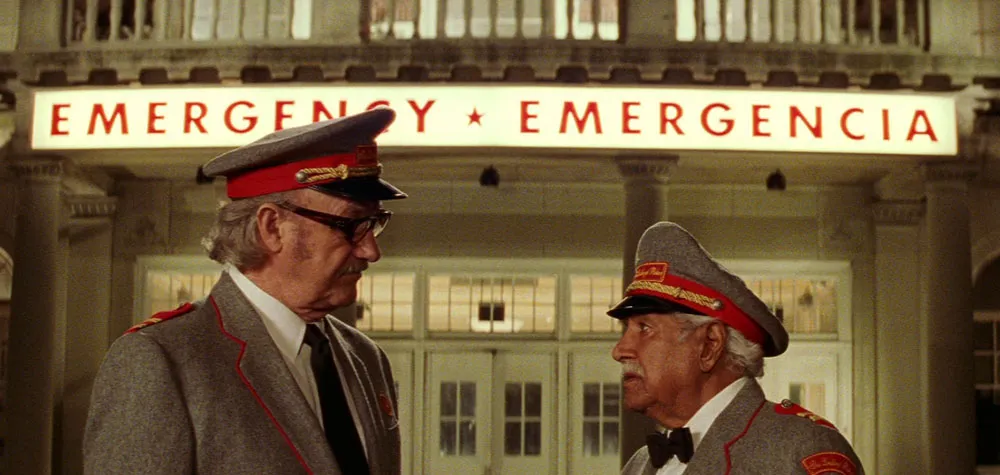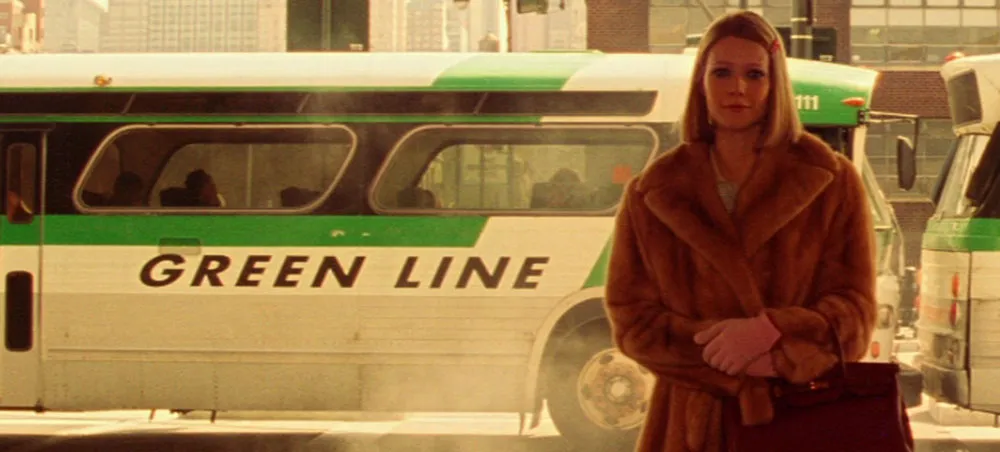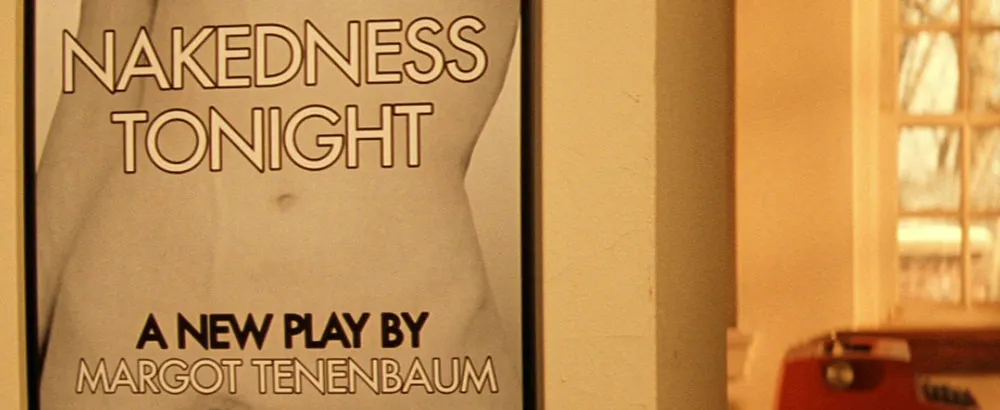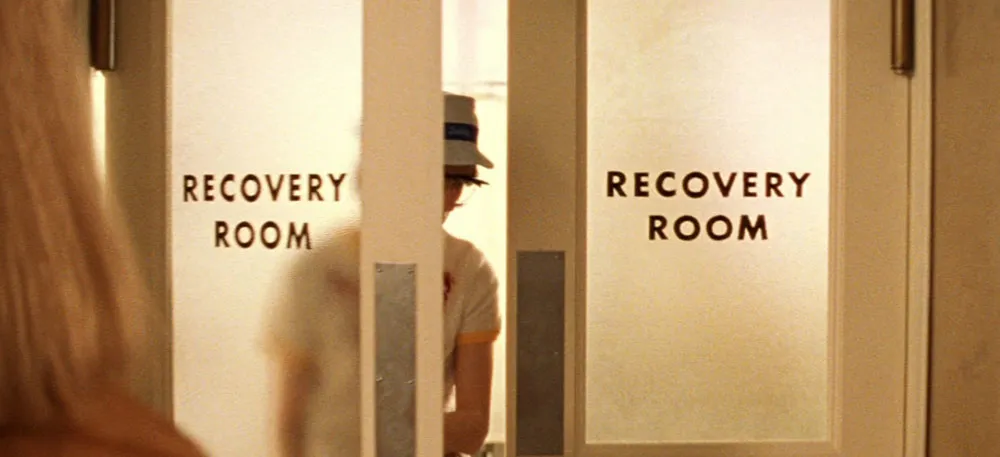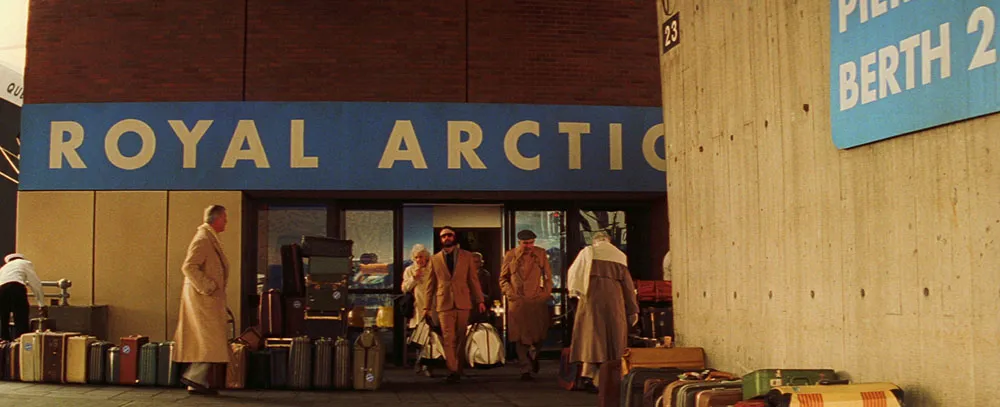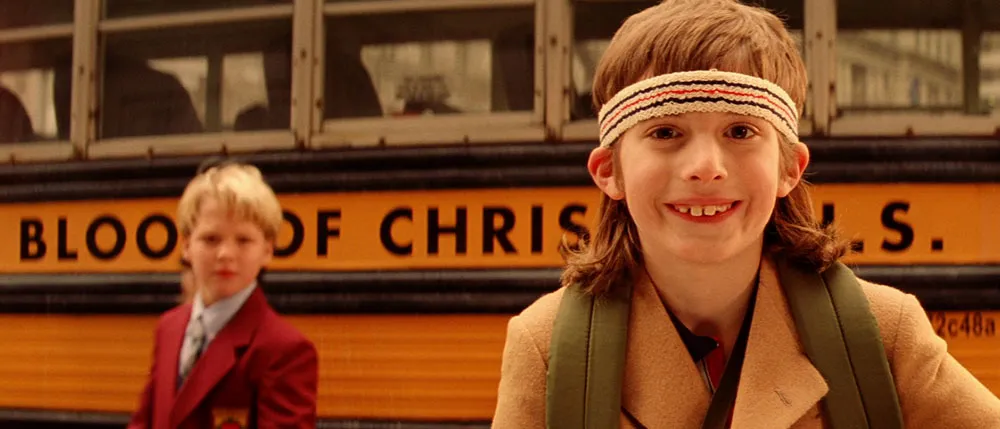
Royal Tenenbaum’s World of Futura
Quite a few people have written me to ask about the type in The Royal Tenenbaums (2001). The type isn’t anachronistic so much as idiosyncratic. Director Wes Anderson seems to have a thing, bordering on obsession, for Futura. The credits are set in Futura Bold—nothing strange about that. But it doesn’t stop there. The Tenenbaums seem to exist in a world dominated by Futura (mainly Futura Bold):
On buses:
At the hospital:
More buses (slanted this time):
For a cruise line (notice it’s called Royal Arctic):
At the museum (Medium weight instead of Bold):
On posters (Margot Tenenbaum seems to favor Medium):
Yet, as much as Futura is used in the movie, a few other typefaces make their appearances. Interestingly, it is usually in connection to someone or something outside the Tenenbaum family and is usually Helvetica:
On Raleigh St. Clair’s books:
On Henry Sherman’s book:
A curious (and possibly significant) exception to this pattern is on the cover of a book supposedly written in the 1970s by Royal Tenenbaum’s wife, Etheline. The typeface is Milano, a quintessentially 1970s choice:
I give The Royal Tenenbaums five out of five stars for its use of type, not because it’s perfectly chosen for the period it depicts (though, as far as that goes, it is), but because Anderson has used type in such an integral way in the film. (I also happen to like Wes Anderson films a lot.)